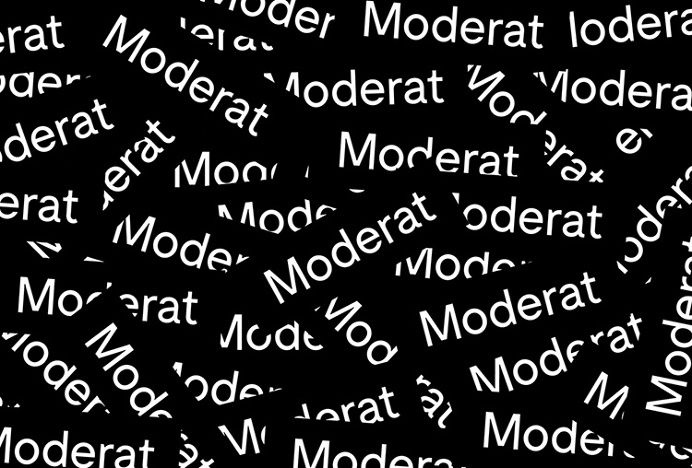
Moderat Font
Moderat Font excels in corporate identity design, annual reports, editorial layouts, minimalist branding, tech company logos, app interfaces, signage systems, architectural presentations, luxury brand materials, and contemporary web design. This sophisticated typeface is particularly effective for projects requiring clean, professional aesthetics.
Moderat Font is exciting because it perfectly embodies the principles of Swiss design philosophy, offering unparalleled clarity and neutrality while maintaining distinctive character. Its carefully refined letterforms provide exceptional readability across all media, making it a designer's dream for versatile applications.
The Moderat Font family encompasses an extensive range of weights and styles: Thin, Light, Regular, Medium, Bold, Black, and their corresponding italic versions, plus condensed variants, giving designers complete typographic control for comprehensive design systems.
Moderat Font Free Download represents a pinnacle of contemporary type design, combining Germanic precision with modern accessibility. This exceptional typeface has gained recognition among leading design studios worldwide for its ability to communicate complex information with remarkable clarity and style. The font's geometric foundation ensures consistency across different sizes while maintaining visual harmony in multi-layered compositions.
Professional typographers praise Moderat Font for its exceptional performance in both digital and print environments. The meticulously crafted character spacing and proportional relationships create optimal reading experiences, whether used in body text or display applications. Its neutral yet distinctive personality makes it an ideal choice for brands seeking to convey reliability, innovation, and sophistication simultaneously.
The technical excellence of Moderat Font includes advanced OpenType features, comprehensive character sets supporting multiple languages, and precisely calibrated metrics that ensure flawless text flow. Design teams working on international projects particularly value its extensive language support and consistent appearance across different writing systems and platforms.
For creative professionals demanding the highest standards in typography, Moderat Font delivers uncompromising quality that elevates any design project. Its versatility spans from corporate communications to artistic expressions, making it an indispensable tool for modern designers who refuse to compromise on typographic excellence and visual impact.